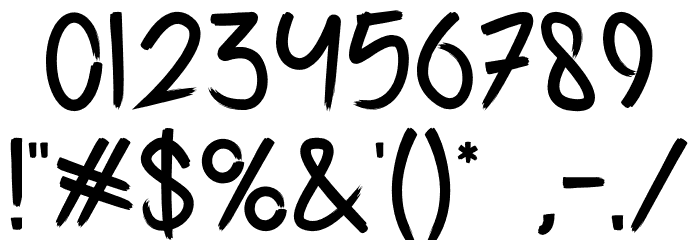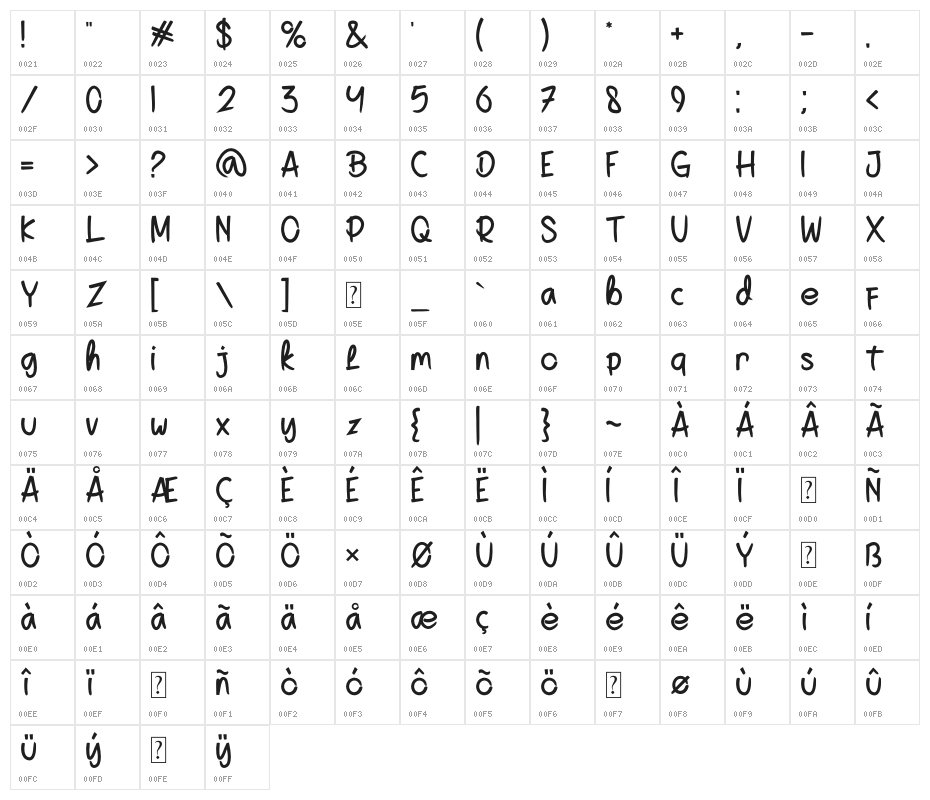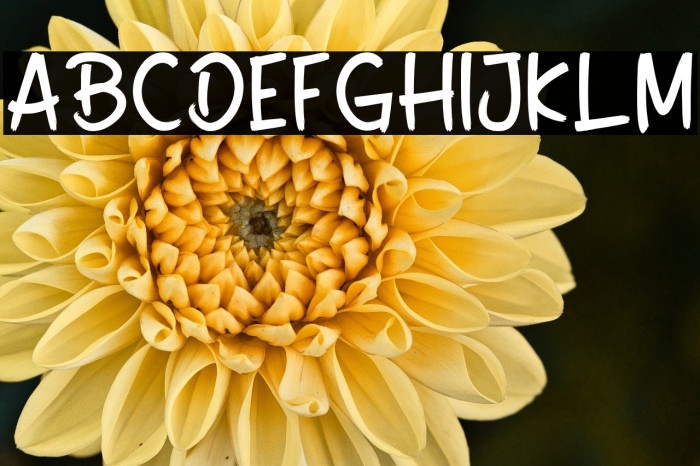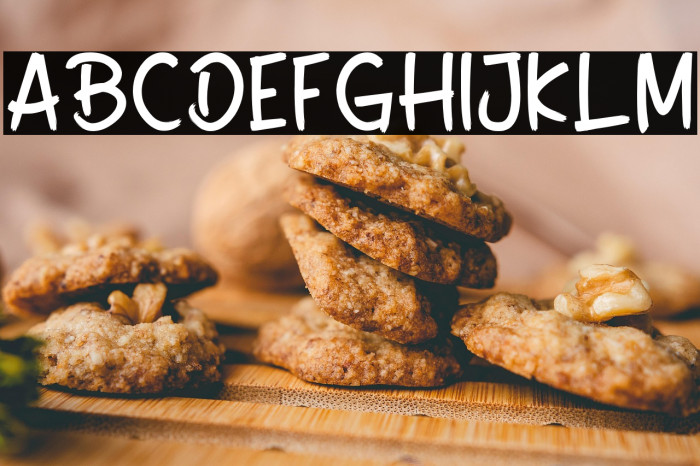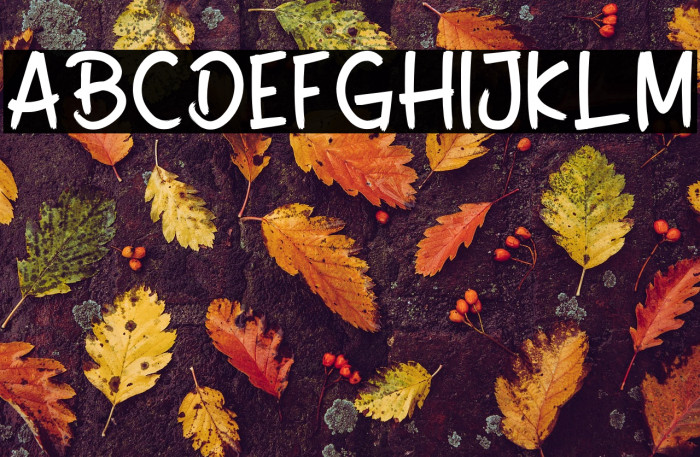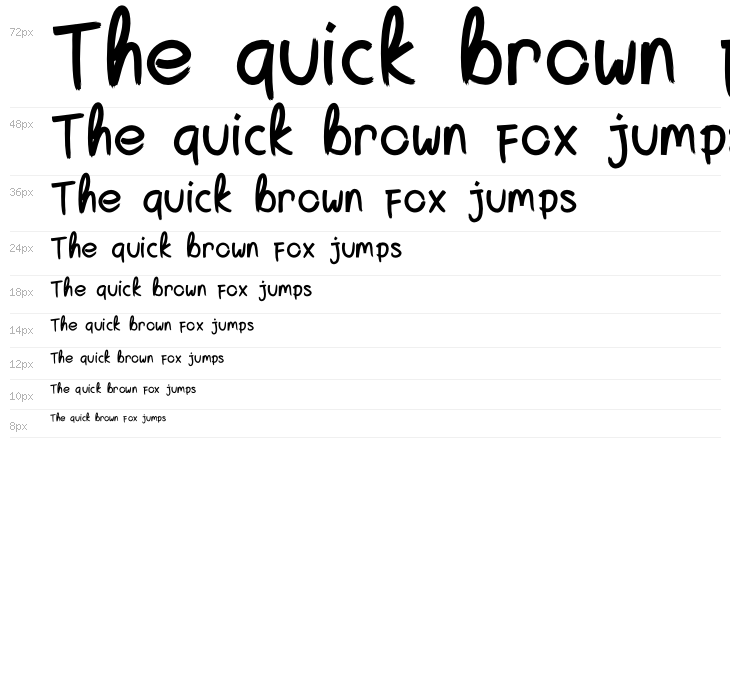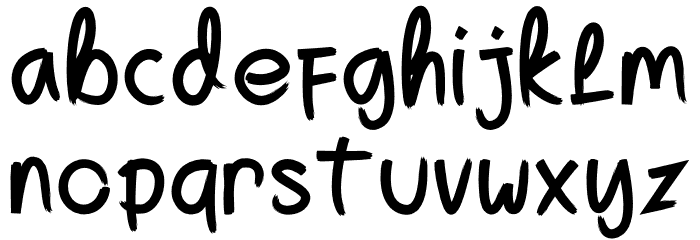
Helynovia Font
Helynovia Description
This font exhibits a playful and energetic handwritten style, characterized by its bold and slightly irregular strokes. The letters have a casual, informal appearance, with a slight slant that adds to its dynamic feel. The uppercase and lowercase letters maintain a consistent style, with rounded edges and a sense of movement. The numerals and special characters follow the same lively aesthetic, making the font suitable for projects that require a personal touch. Its boldness ensures readability while the handwritten style adds a unique flair.
| Overall Style | Playful, Informal |
| Proposed Projects | Ideal for greeting cards, children's books, playful branding, and social media graphics. |